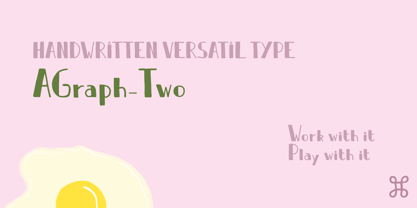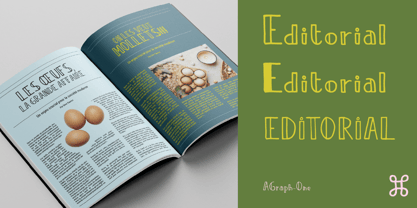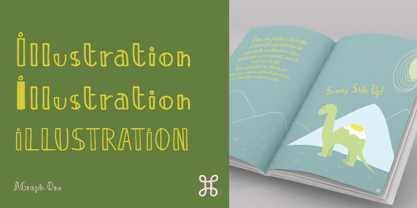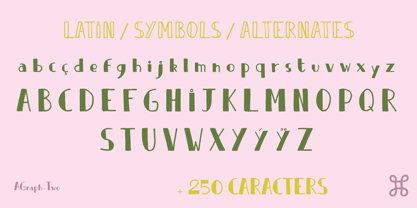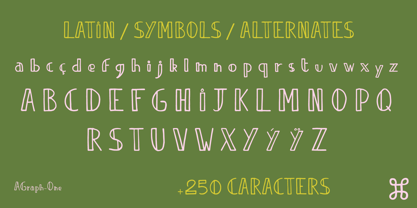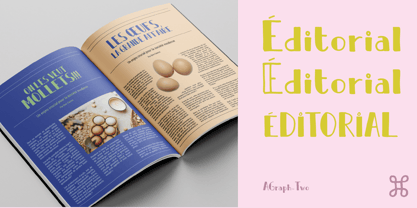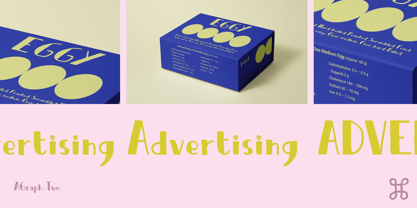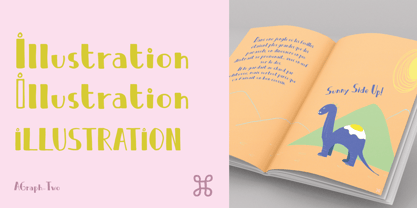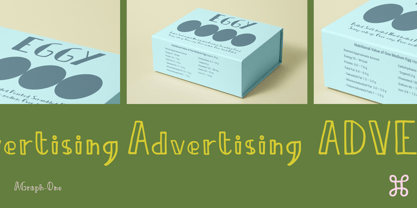
The Agraph Font Family was designed by Anne-laure Jean and published by La DactyloGraphique. Agraph contains 2 styles and family package options. More about this family
AGraph is a handcrafted typeface based on the grahic designer’s own handwriting—equal parts editorial precision and personal flair. Born from a love of book's cover, children books, magazine, typography, and the characters most fonts forget, it includes rare Latin glyphs and those charming diacritics that usually get left behind. Perfect for editorial work, creative publishing, or adding a touch of human warmth to digital design, this font stands out by staying personal. It’s quirky, readable, and unapologetically nerdy—just like the best kind of editor. Agraph-one is the clear one. Agraph-Two is the full one